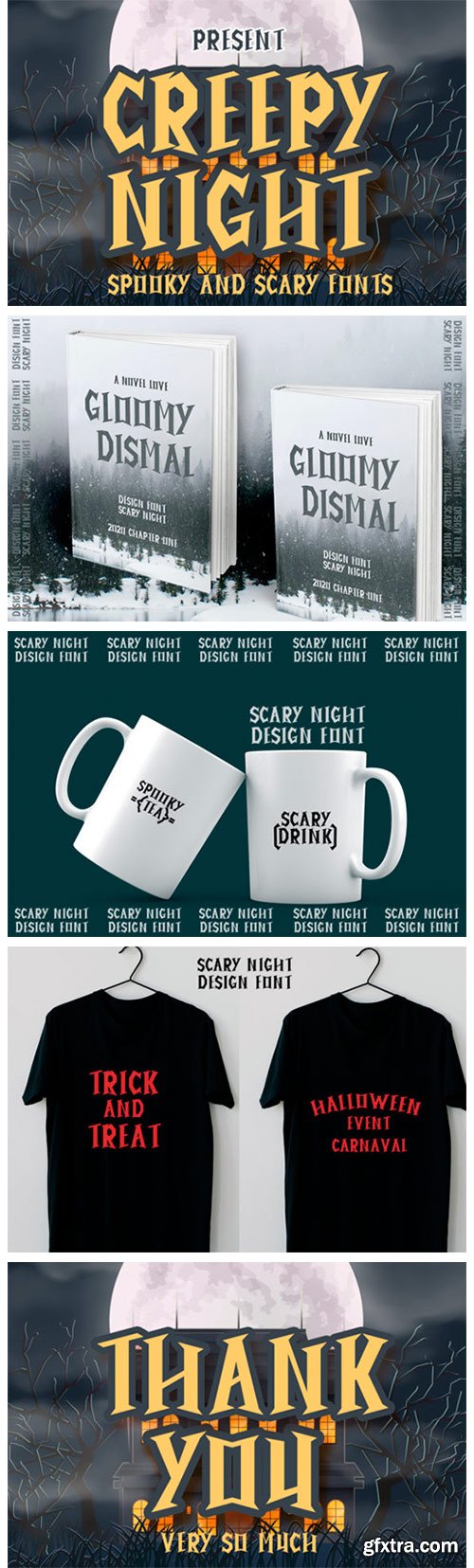
Creepy Night Font
Creepy Night is a spooky and scary display font. Ideal for any October design or Halloween party, this font will become your favorite in no time!